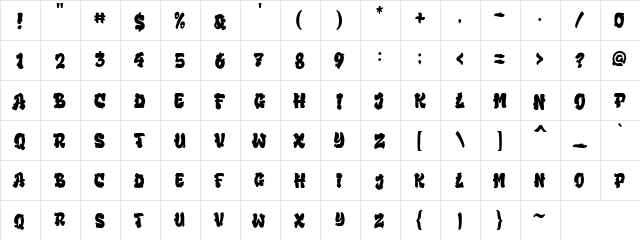
Bubble Boom Regular
Design Context for Bubble Boom Typeface
Bubble Boom trades formality for fun, with bouncy, characterful letterforms that bring warmth and energy to any project.
Font Pairing: Pairs well with a rounded or humanist sans for body copy, maintaining the friendly tone without relying on Bubble Boom to carry extended reading.
Pro Tip: Use Bubble Boom at larger display sizes where its expressive character can land. Pair with a clean, simple sans for body copy to maintain readability.